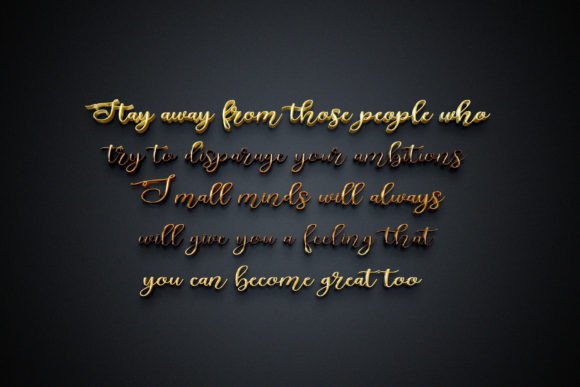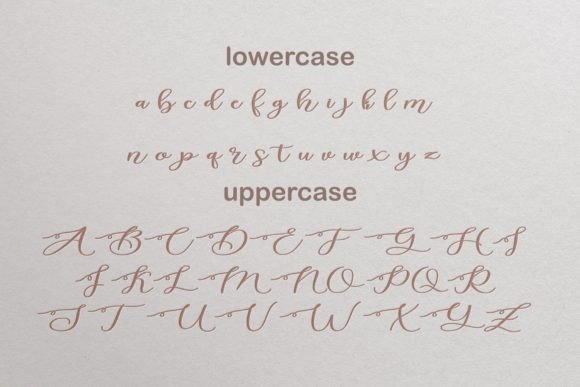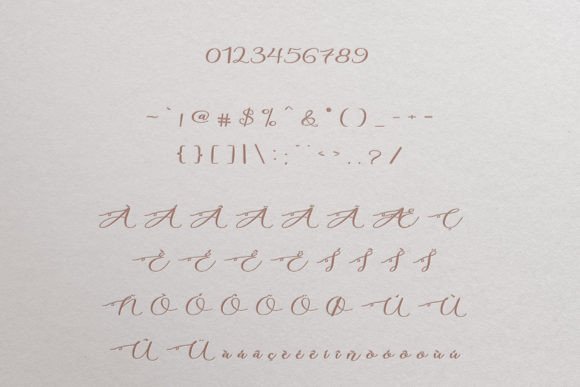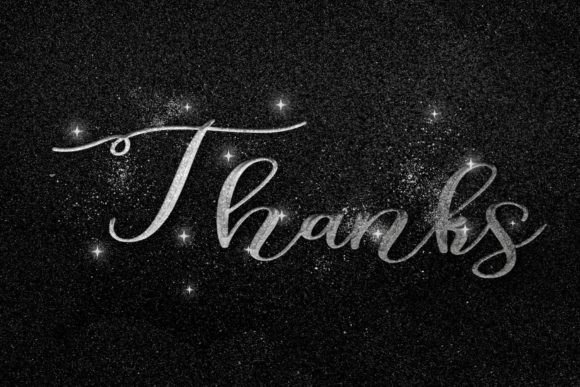
Bernadetta Font: Elevate Your Designs with a Touch of Modern Elegance
In the world of typography, a font can make or break a design. For designers and crafters looking to add a touch of modern elegance to their projects, Bernadetta font is an excellent choice. This modern script font is suitable for a wide range of applications, from logos and branding projects to homeware designs, product packaging, and more.
What is Bernadetta Font?
Bernadetta is a beautiful, modern script font designed to bring a touch of sophistication to any project. Its elegant lines and fluid curves make it perfect for designs that require a high level of refinement. Whether you’re working on a logo, a poster, or a product label, Bernadetta font is sure to impress.
Key Features of Bernadetta Font
So, what makes Bernadetta font so special? Here are a few key features that set it apart:
- Modern Script Style: Bernadetta font boasts a modern script style that’s perfect for designs that require a touch of elegance.
- Highly Versatile: This font is suitable for a wide range of projects, from logos and branding projects to homeware designs, product packaging, and more.
- Elegant Lines and Fluid Curves: Bernadetta font features elegant lines and fluid curves that make it perfect for designs that require a high level of refinement.
- Easy to Read: Despite its elegant style, Bernadetta font is easy to read, making it perfect for body text and headlines.
Uses for Bernadetta Font
Bernadetta font is incredibly versatile, making it suitable for a wide range of projects. Here are a few ideas to get you started:
- Logos and Branding Projects: Use Bernadetta font to create a stunning logo or branding project that will help your business stand out.
- Homeware Designs: Add a touch of elegance to your homeware designs with Bernadetta font.
- Product Packaging: Use Bernadetta font to create eye-catching product packaging that will help your product stand out on store shelves.
- Mugs and Water Bottles: Add a touch of personality to your mugs and water bottles with Bernadetta font.
- Posters and Flyers: Use Bernadetta font to create stunning posters and flyers that will grab attention.
- T-Shirts and Apparel: Add a touch of elegance to your t-shirts and apparel with Bernadetta font.
- Book Covers and Magazines: Use Bernadetta font to create stunning book covers and magazine layouts.
- Invitations and Greeting Cards: Add a touch of sophistication to your invitations and greeting cards with Bernadetta font.
Why Choose Bernadetta Font?
So, why choose Bernadetta font for your next project? Here are a few reasons:
- Unique and Elegant Style: Bernadetta font boasts a unique and elegant style that’s sure to impress.
- Highly Versatile: This font is suitable for a wide range of projects, making it a great addition to any designer’s toolkit.
In conclusion, Bernadetta font is a beautiful, modern script font that’s perfect for designers and crafters looking to add a touch of elegance to their projects. Its highly versatile, easy to use, and affordable, making it a great addition to any designer’s toolkit. Whether you’re working on a logo, a poster, or a product label, Bernadetta font is sure to impress. So why wait? Download Bernadetta font today and take your designs to the next level!